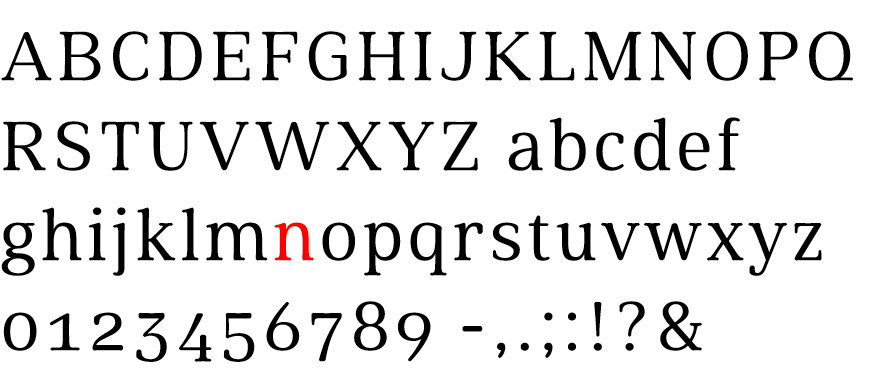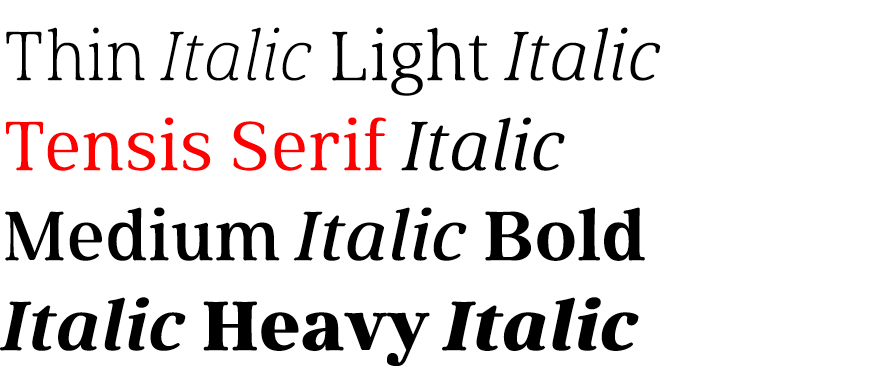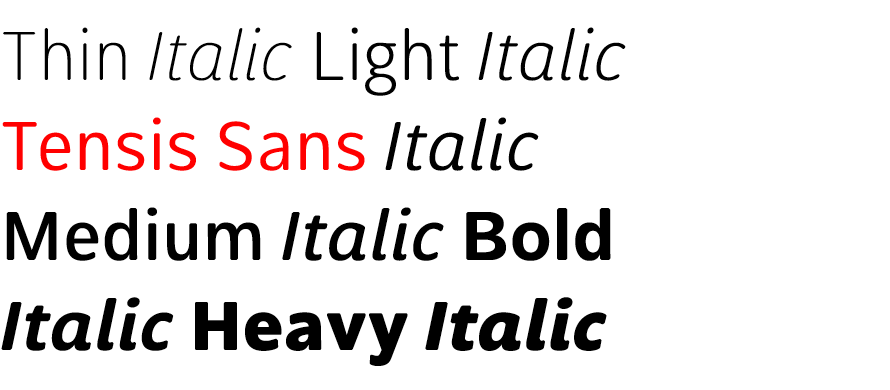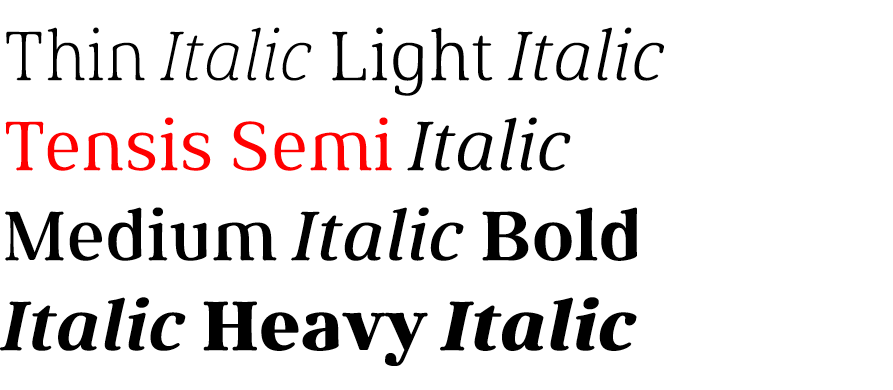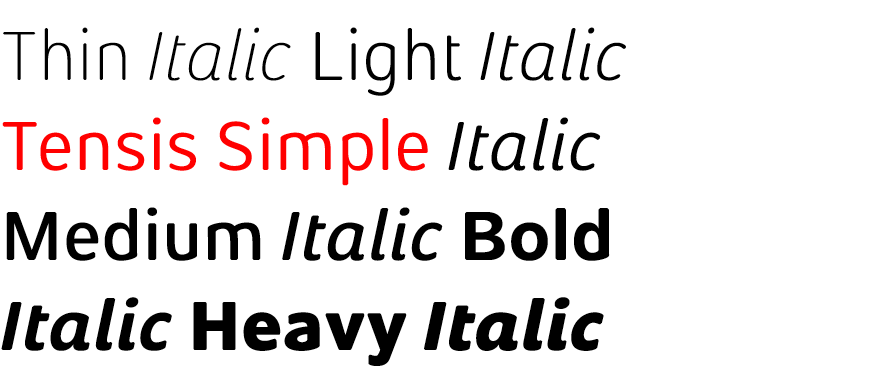
Tensis
Interrelated font system with unified basic form.
High-quality shapes through carefully designed details.
Inspired by the beauty of natural curvature.
The lack of spurs on stems of Semi and Simple gives a clear shape.
For readability not-essential horizontal strokes of Semi and Simple are removed.
Alternate numerals meet the German standard requirements to legible texts.
Matching arrow symbols indicate in eight directions.
Old style numerals of Sans and Serif help animate typography.
The alternate lowercase l is shaped for public signage.
Four styles, six weights and italics.